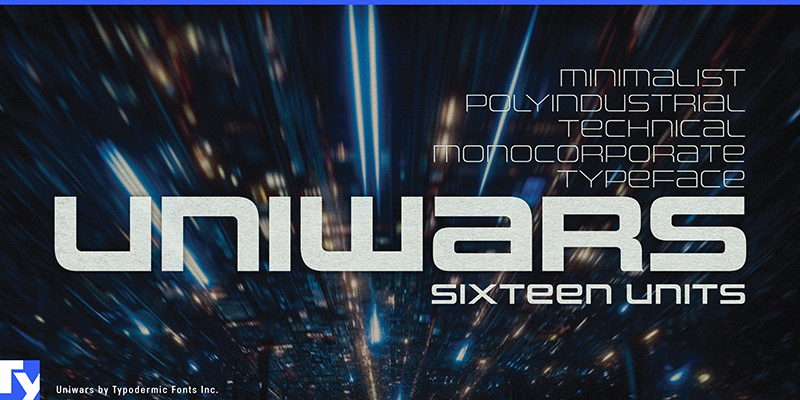
Uniwars
Uniwars draws inspiration from the angular typography of Japanese industrial signage. Built on a modular grid, its strong verticals, firm horizontals, and sharp diagonals give the letters a crisp, engineered presence. The design works equally well for game interfaces, tech branding, sci-fi graphics, and bold display typography. Clean geometry and balanced spacing keep it clear in both digital and print environments, delivering a confident, futuristic voice. These fonts include a license that allows free commercial use: sometimes referred to as a desktop license. This allows you to install the fonts on a computer and use them to create posters, web graphics, game graphics, t-shirts, videos, signs, logos and more. Read the license agreement for details. If you'd like to embed this font in an app, on the web or anything that's not covered by the desktop license agreement, visit the link below. You'll find distributors who offer different types of licenses, or you can contact me for help. https://typodermicfonts.com/uniwars/ These free fonts are part of a larger font family. Check out the rest of the family through the link above.